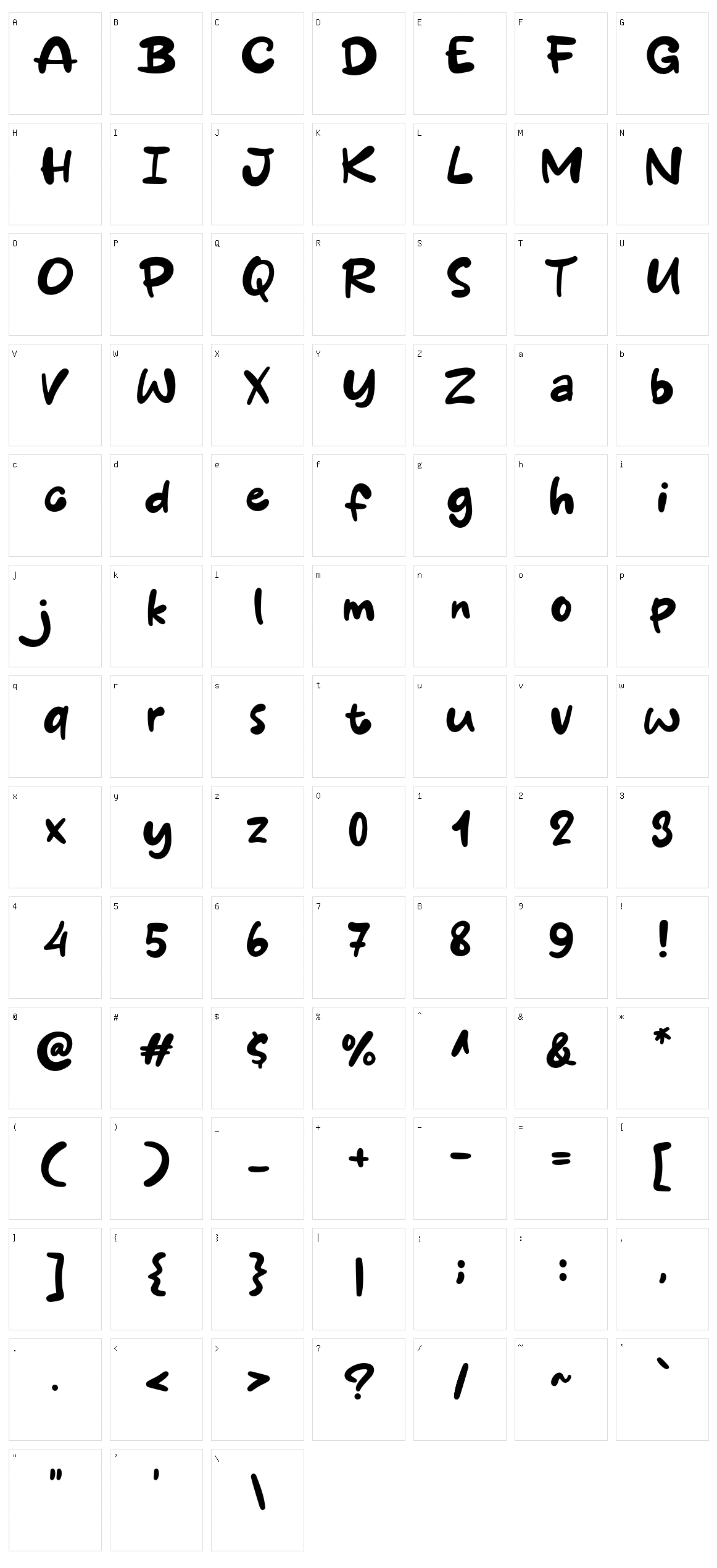
The free font Yok Puasa is carefully designed by Khurasan, showcasing a thoughtful balance of creativity and usability and falls under the Cartoon font style. When you download the ZIP file, it contains only 363.46 KB of font files, making it lightweight and quick to download. Please review the license details below to understand permitted usage and distribution rights. If license information is not available, we recommend using this font for personal projects only or contacting the author directly for commercial usage permissions.